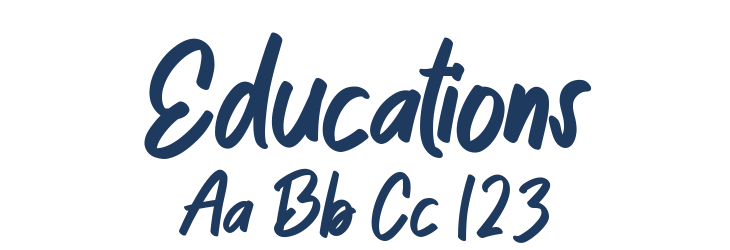
Education Pencil Font
Font by
hardikmeckwan
A playful, hand-drawn font with a pencil sketch style.
IDAutomationHC39M Font
A barcode font for encoding alphanumeric data in Code 39 format.
IDAutomation.com Code39 Font
A monospaced font designed for barcode representation with uniform character width.
ETH_B_gofa Font
Font by
gofasefer
A bold, playful font with rounded edges and a vintage flair.
IDAHC39MCode39Barcode Font
Font by
IDAutomation
A barcode font for encoding alphanumeric data into machine-readable format.
Medieval Sorcerer Ornamental Font
An ornate, medieval-inspired font with intricate decorative elements.
King Education Center Font
A playful, hand-drawn font with quirky, creative letterforms and cheerful symbols.
HFF Kids Stuff Font
Font by Have Fun with Fonts
A whimsical, illustrative font featuring playful scenes with children and toys.
Education What education Font
A playful, casual handwritten font with a natural flow.
Bamum Symbols 1 Font
Ornate, pictographic symbol set with hand-drawn qualities.
Education Font
Education-themed dingbat font with detailed school-related illustrations.
Education is a Way Font
Font by Galdino Otten - galdinootten.com
A playful, hand-drawn font with a sketch-like, artistic style.
Home Education DEMO Regular Font
A playful, bold handwritten font with rounded letterforms.
Education 3D Regular Font
A bold, 3D geometric font with a striking shadow effect.
Jost_Futuristic_Style Font
A futuristic, geometric font with hollow spaces and a modern digital aesthetic.
BizFonts C39 XLS Free Version Font
Font by
BizFonts
Monospaced, barcode-inspired geometric font with high legibility.
Educations Font
Font by Belina Studio
School Education Regular Font
A playful, handwritten font with a chalk-like appearance.
Education Childsmart Font